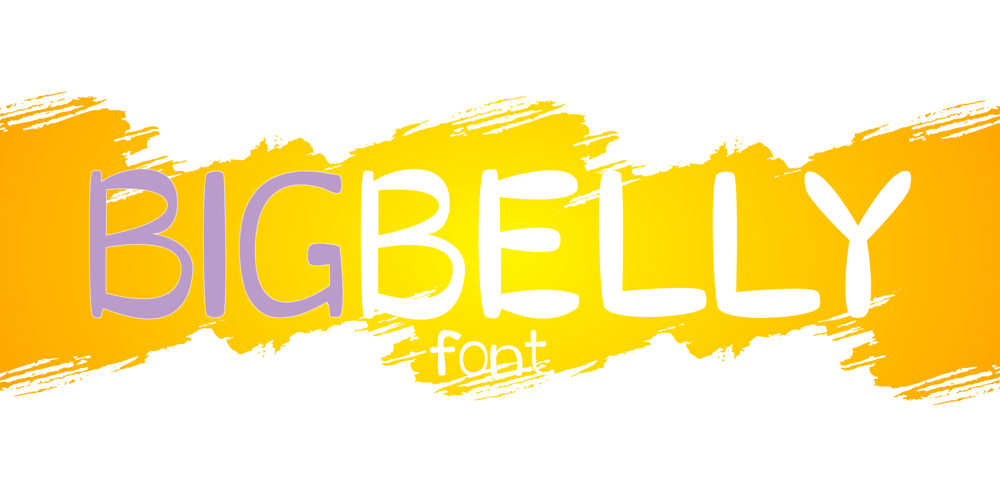
Bigbelly Font Family was designed by Sol Hess and published by Arkalandara. Bigbelly contains 1 styles and family package options. This font is a characterful and unique font type that captures the essence of playful imagination and artistic flair. Its design is a fusion of whimsical shapes and rhythmic grooves, creating a delightful and distinctive visual experience.The letters dance across the page with a sense of lively energy. Each character is adorned with intricate swirls, loops, and playful embellishments, giving the font a sense of spontaneity and creativity. The curves and angles are carefully balanced to maintain readability while adding an element of fun.